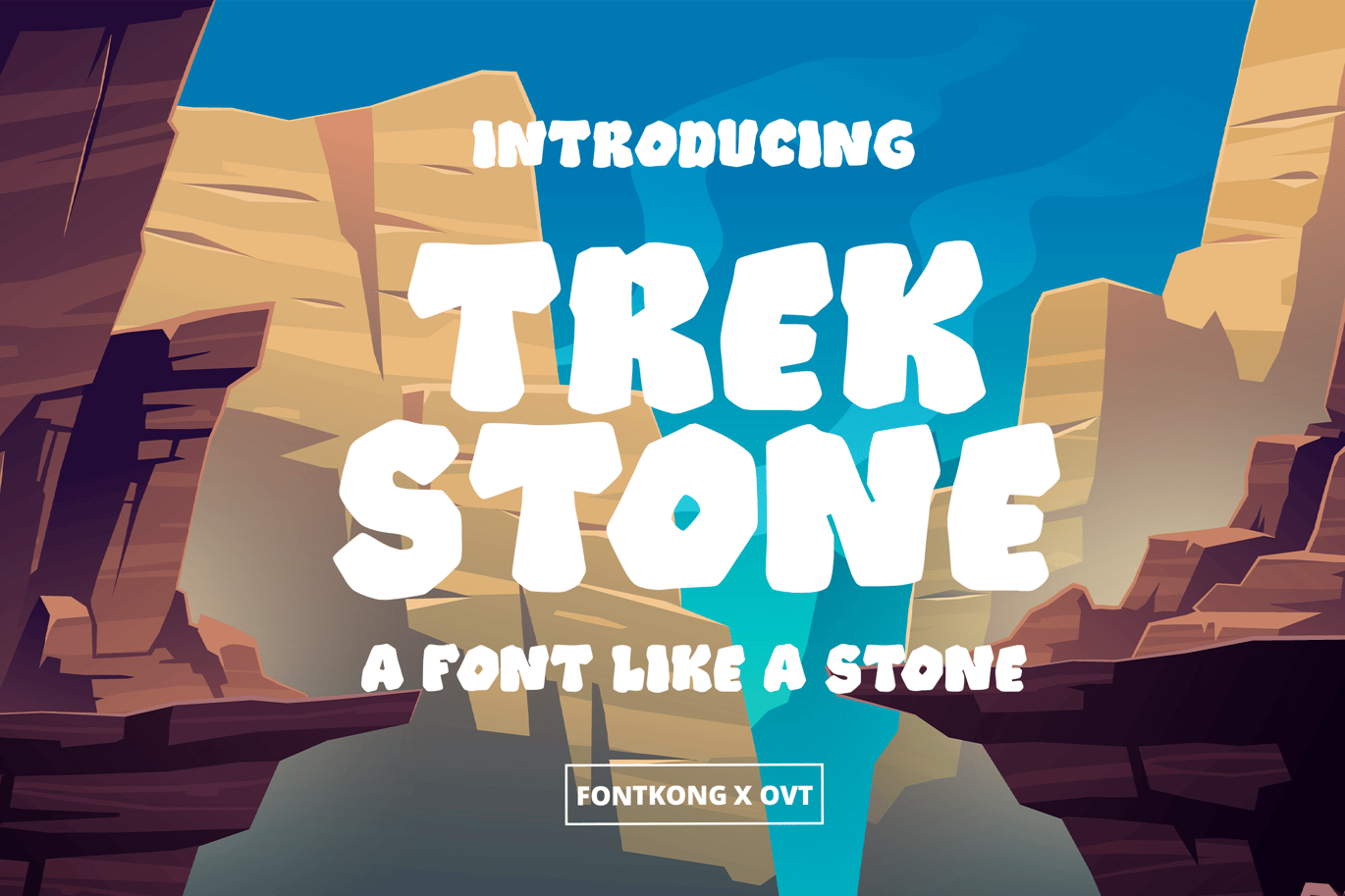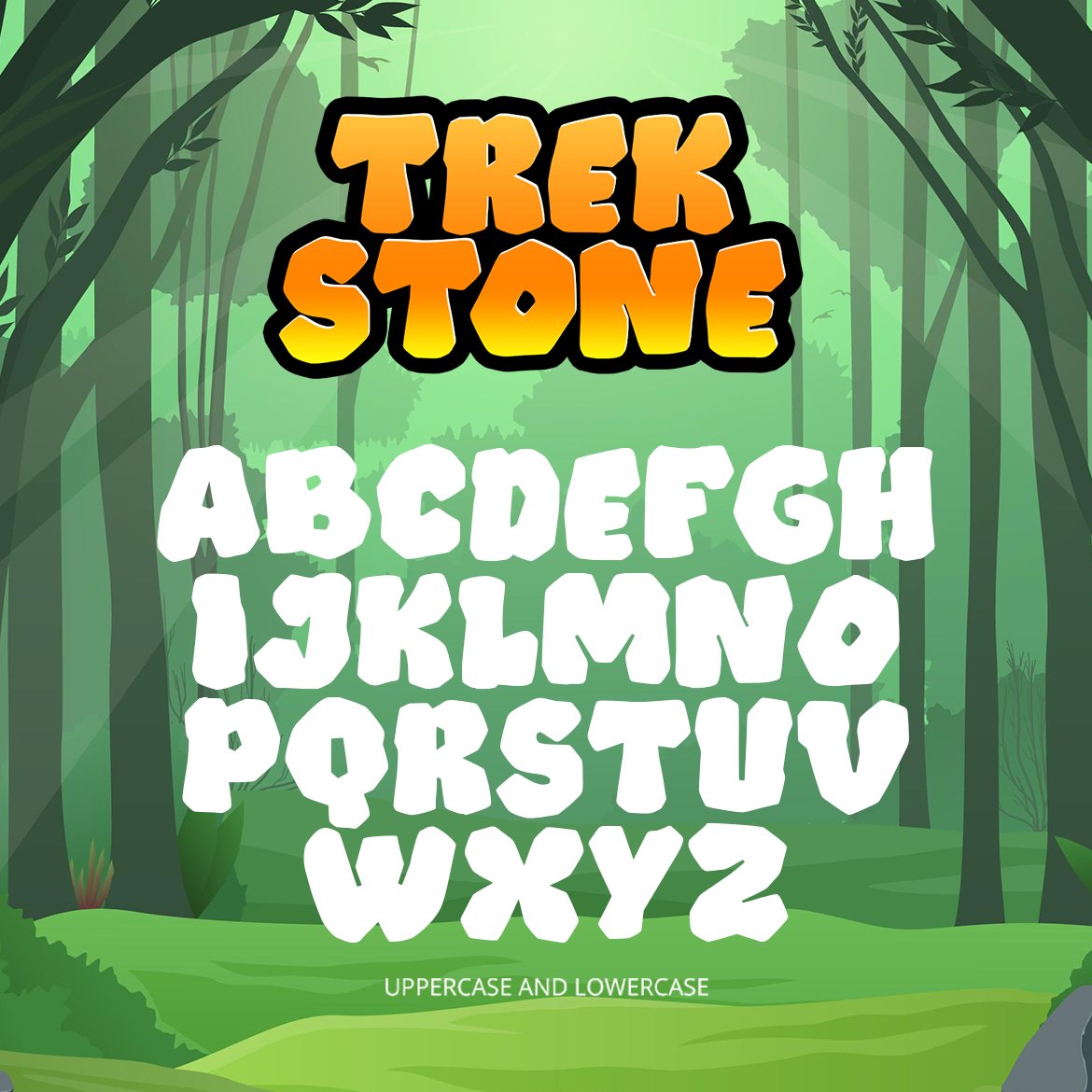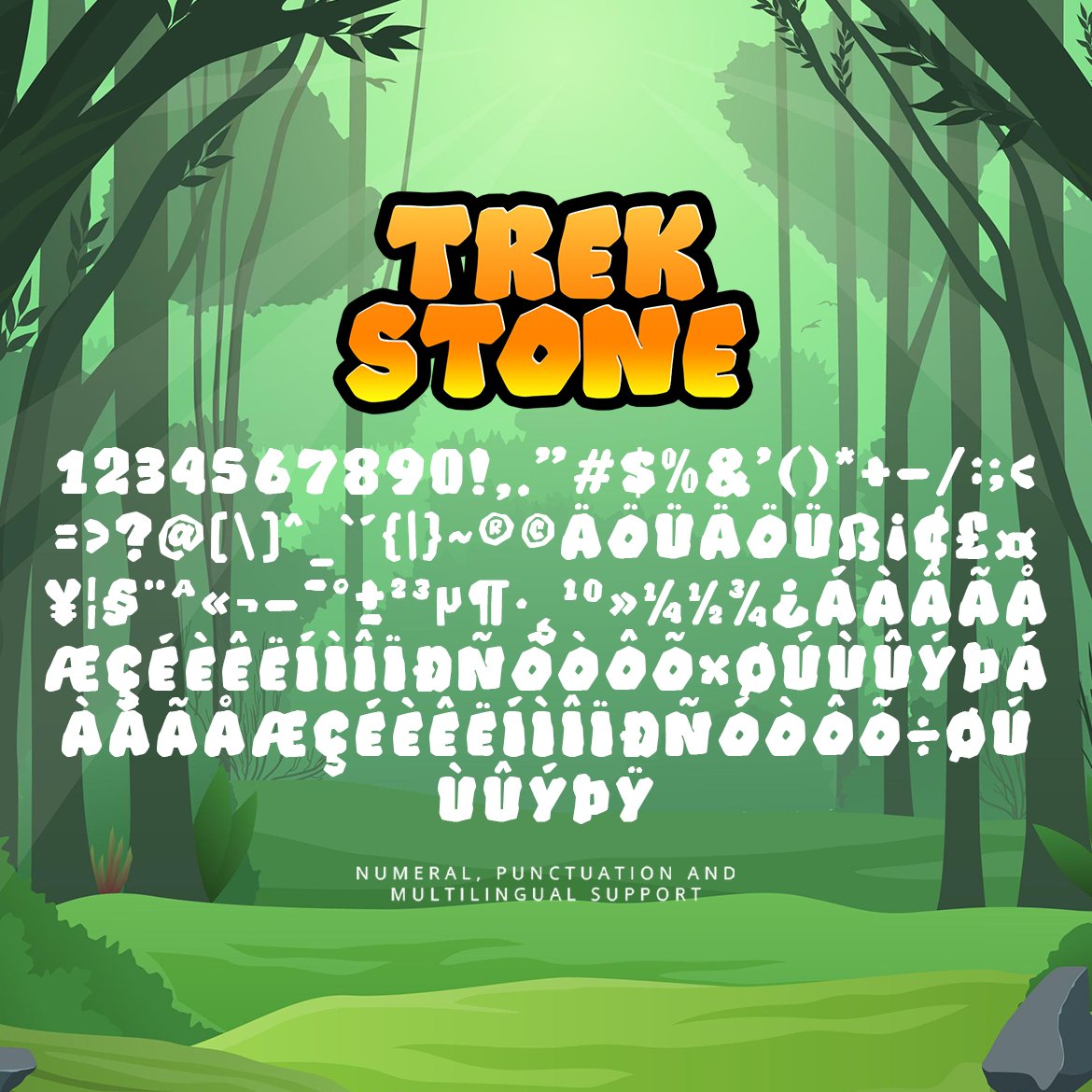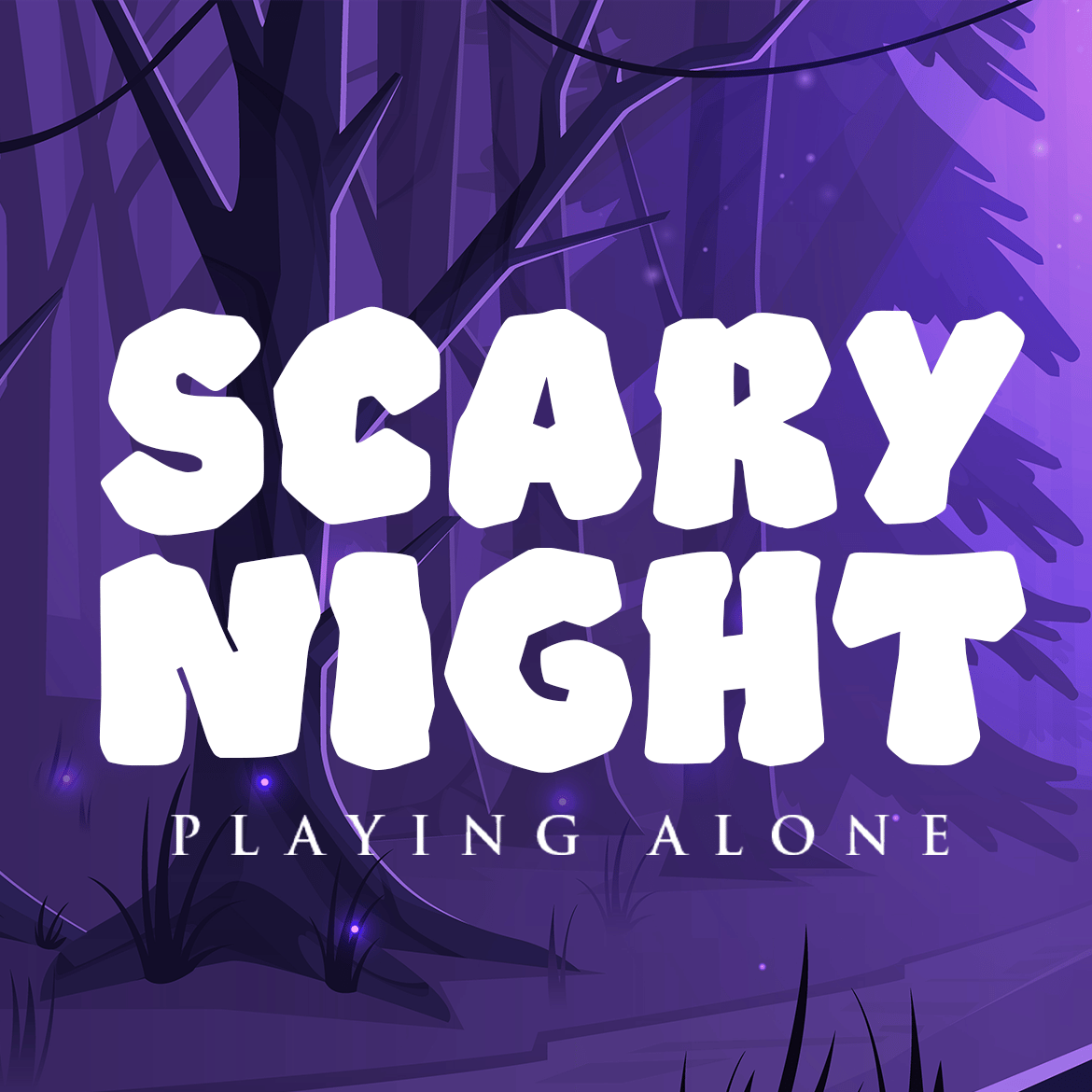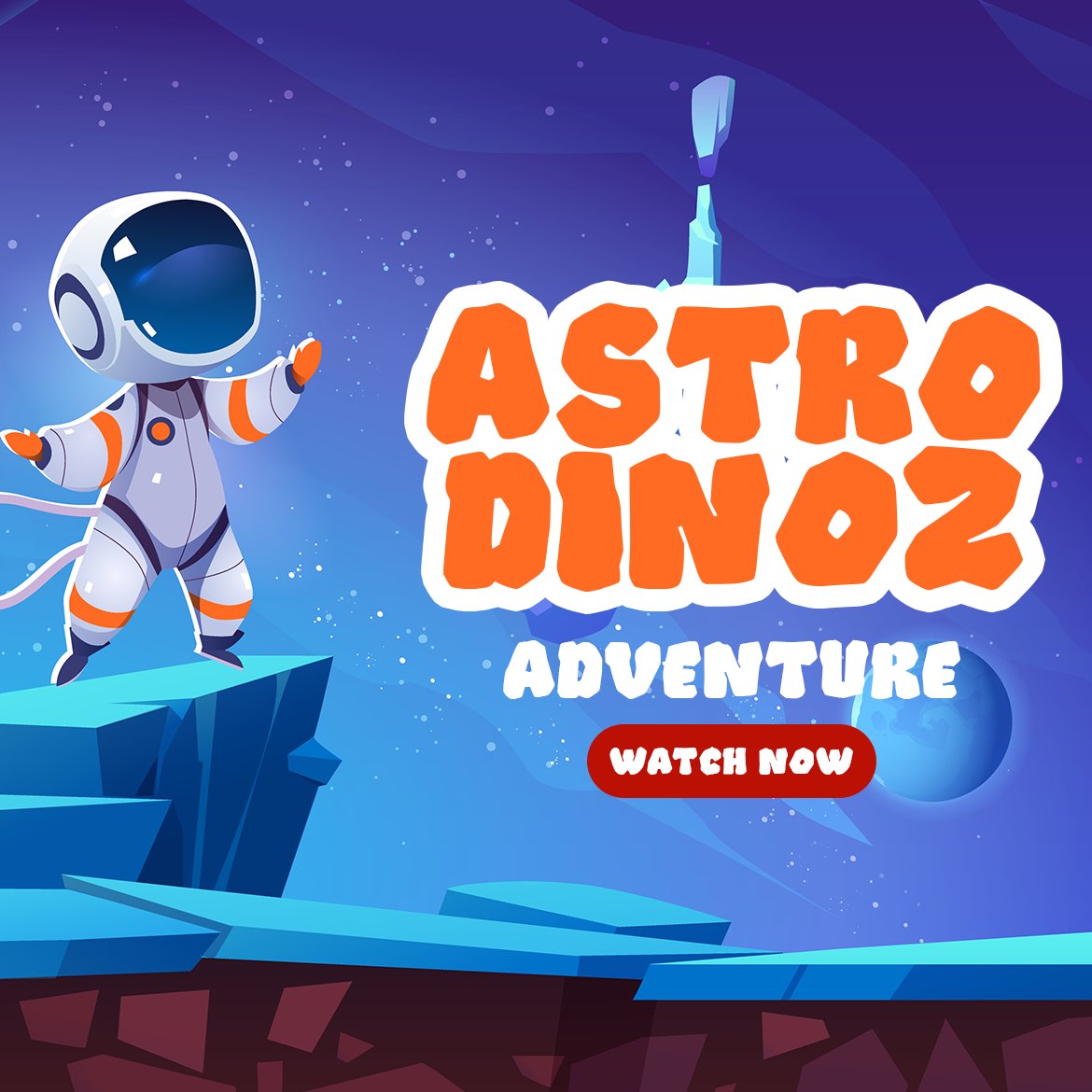
Trekstone – Font Carved in Stone
Introducing “Trekstone,” a font meticulously crafted to evoke the enduring strength and timeless elegance of stone. Perfect for designers, architects, and creatives seeking to infuse their projects with a sense of permanence and solidity, Trekstone offers a typeface that stands the test of time.
Ideal for architectural signage, monuments, branding, and editorial design, Trekstone’s chiseled edges and robust letterforms convey a sense of durability and resilience. Each character is meticulously designed to mimic the texture and depth of carved stone, ensuring authenticity and visual impact.
The “Trekstone” font includes a complete set of uppercase and lowercase letters, numbers, punctuation marks, and special characters. This comprehensive set allows for versatile use in a wide range of design applications, from monumental inscriptions to elegant branding materials.
Forge your message in the enduring strength of stone with Trekstone, the font that embodies timeless solidity and lasting impact.